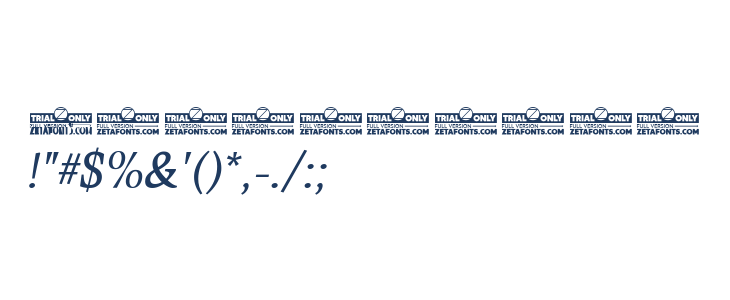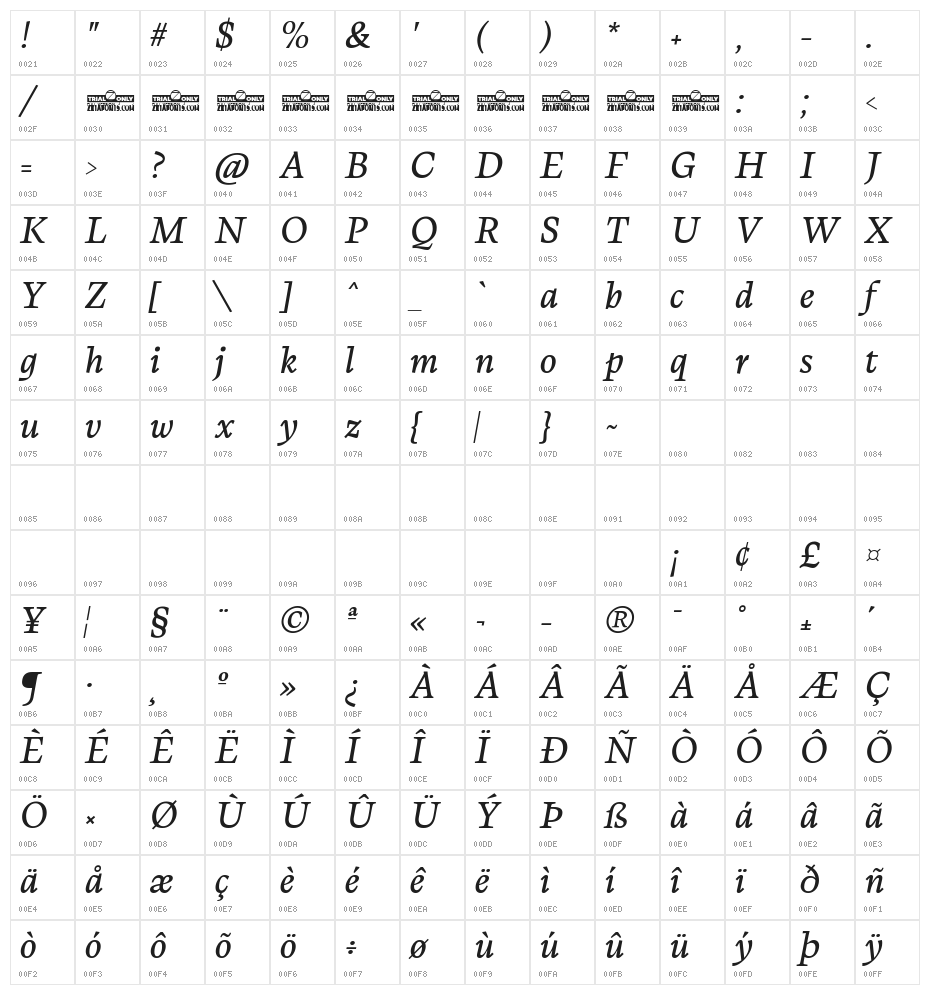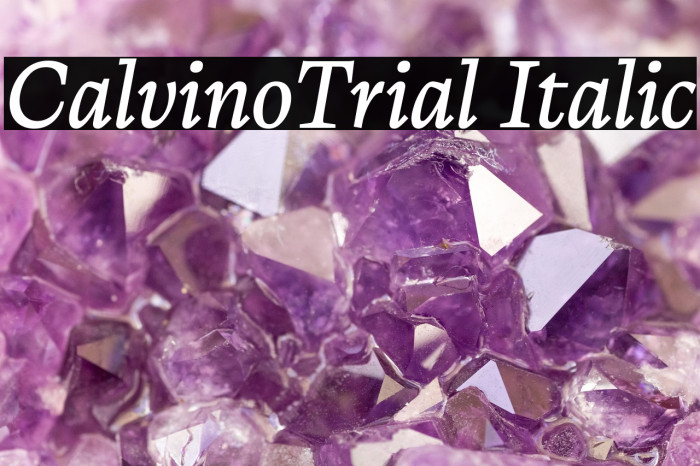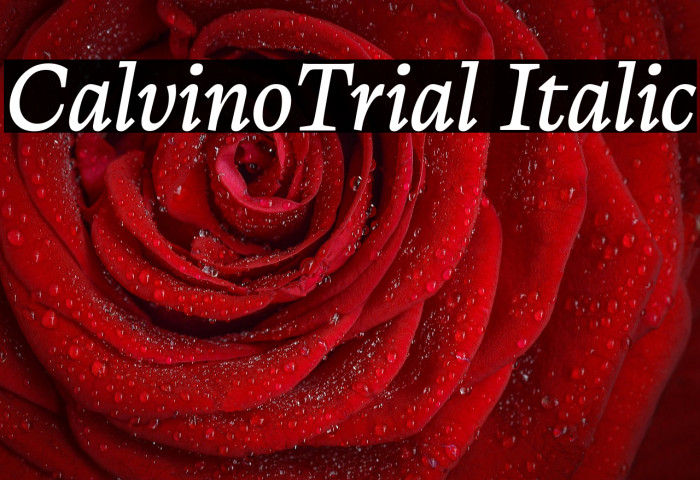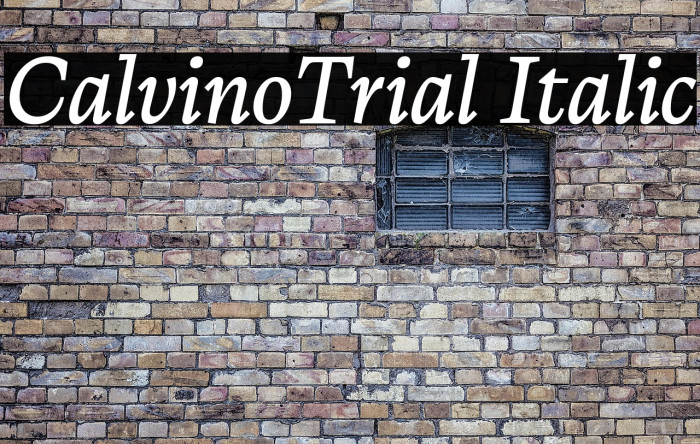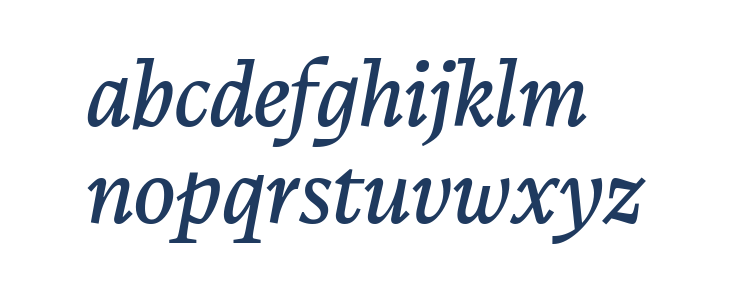
CalvinoTrial Italic Font
CalvinoTrial Italic Description
This elegant serif font features a classic italic style with smooth, flowing curves and a refined appearance. The letters are slightly slanted, giving a sense of motion and sophistication. The uppercase characters are tall and stately, while the lowercase letters maintain a consistent and harmonious flow. The numerals are clear and well-defined, matching the overall aesthetic of the font. Special characters are thoughtfully designed, ensuring versatility in various applications. The font's design is both timeless and versatile, suitable for a wide range of uses.
Overall StyleClassic
Proposed ProjectsIdeal for use in editorial design, book covers, formal invitations, and branding projects that require a touch of elegance.